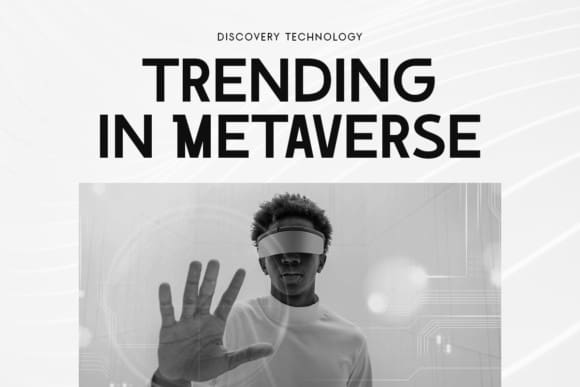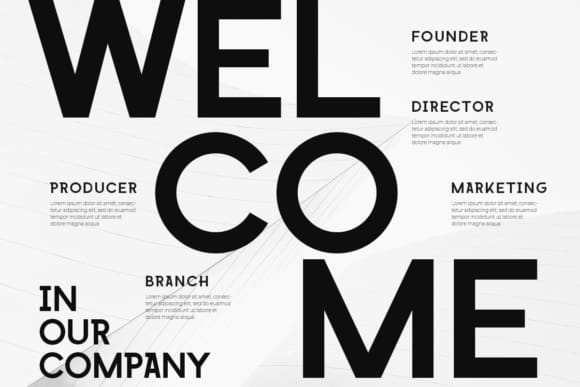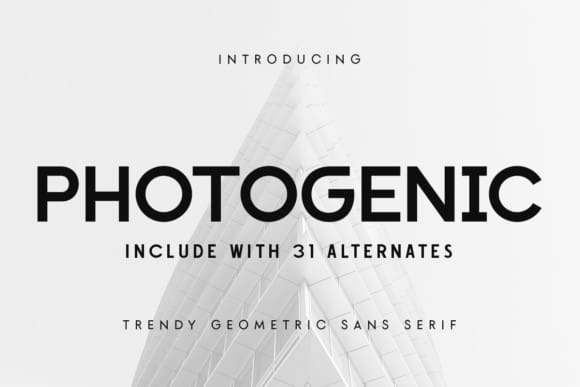
Photogenic Font
Photogenic Font is a modern and sleek sans-serif font. Suitable for any design needs : logo, branding, modern advertising design, logos, poster quote, book / cover Title, editorial design, website / blog, card, t-shirts, and any hand-lettered needs. Add it confidently to your projects and enjoy the results!